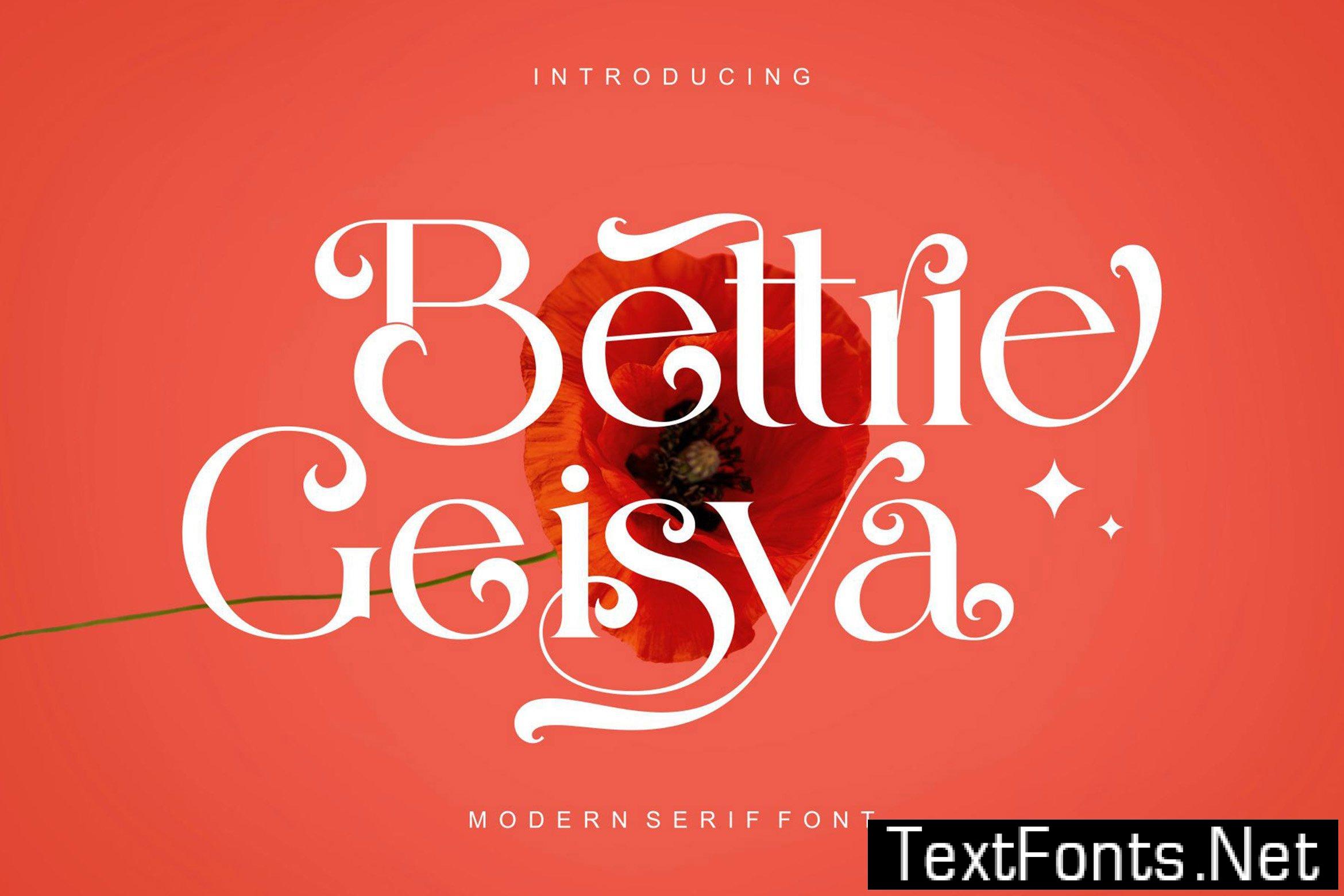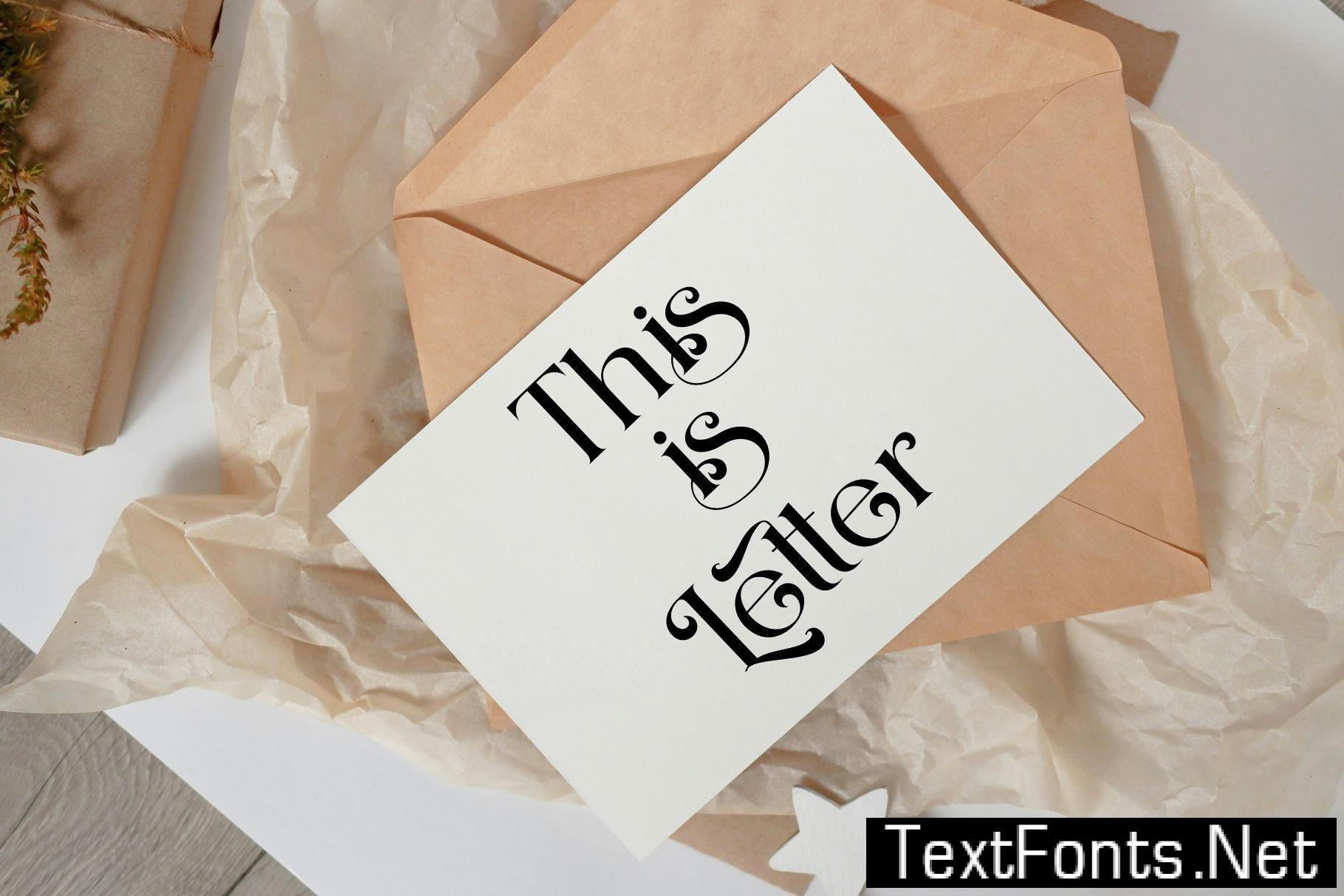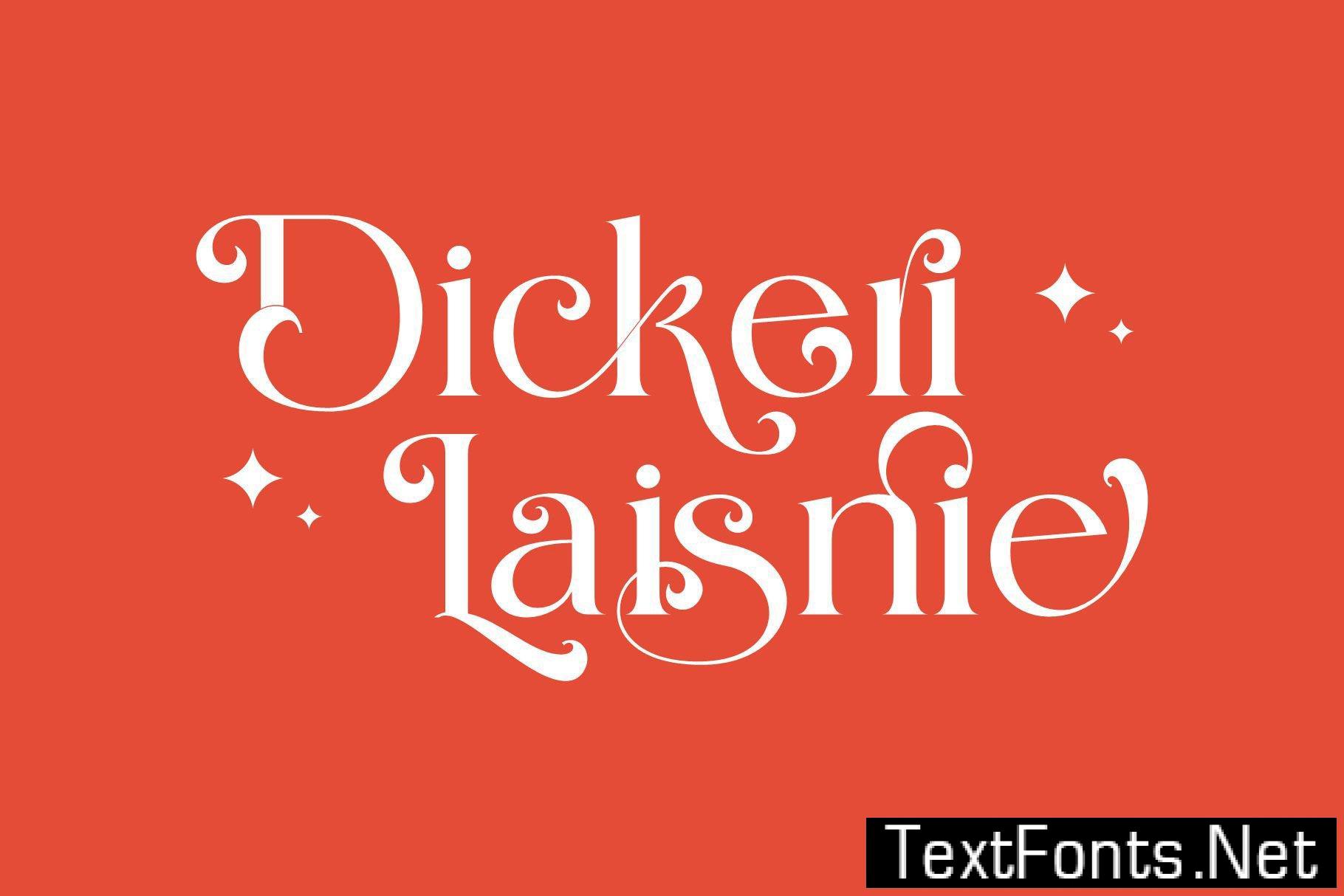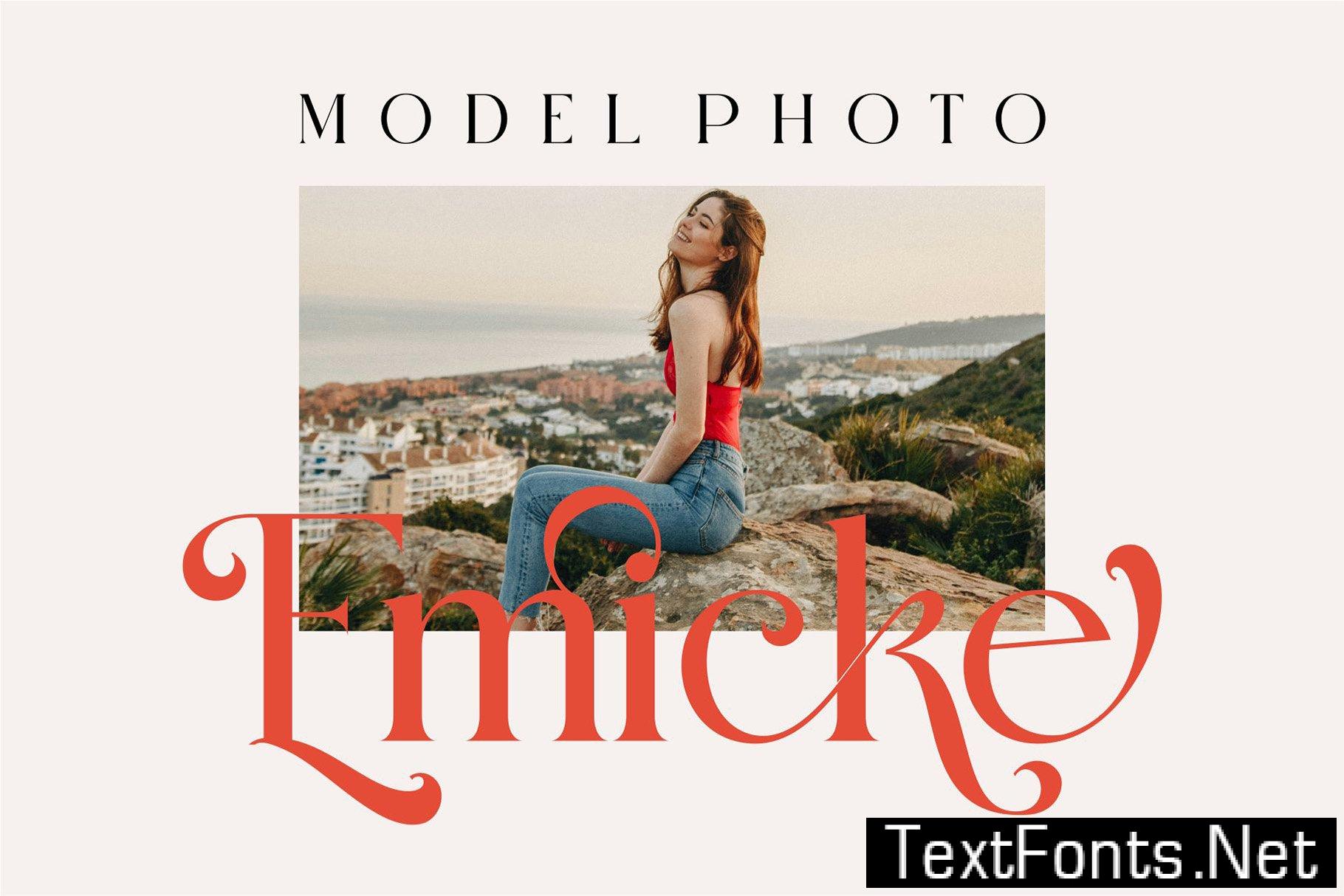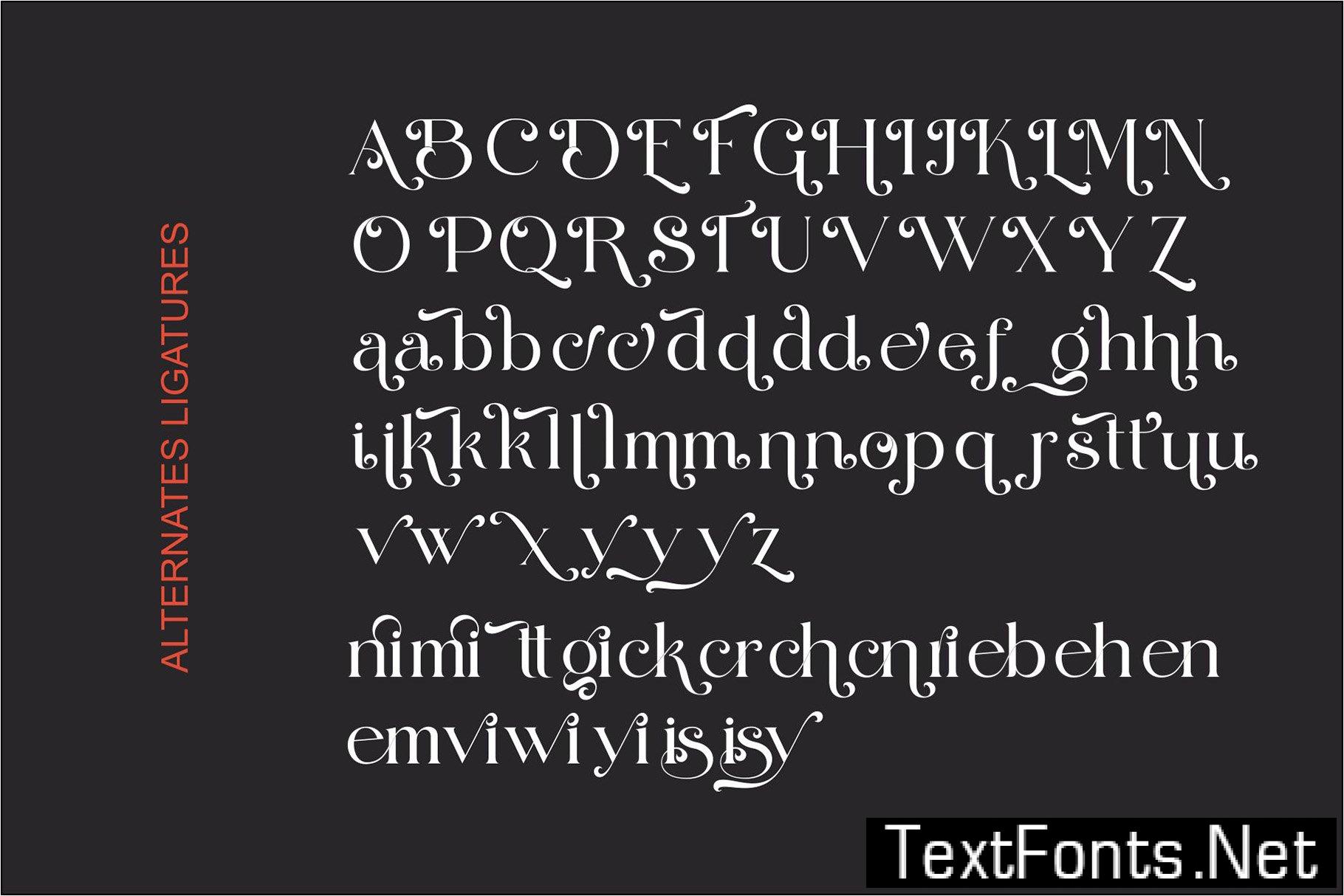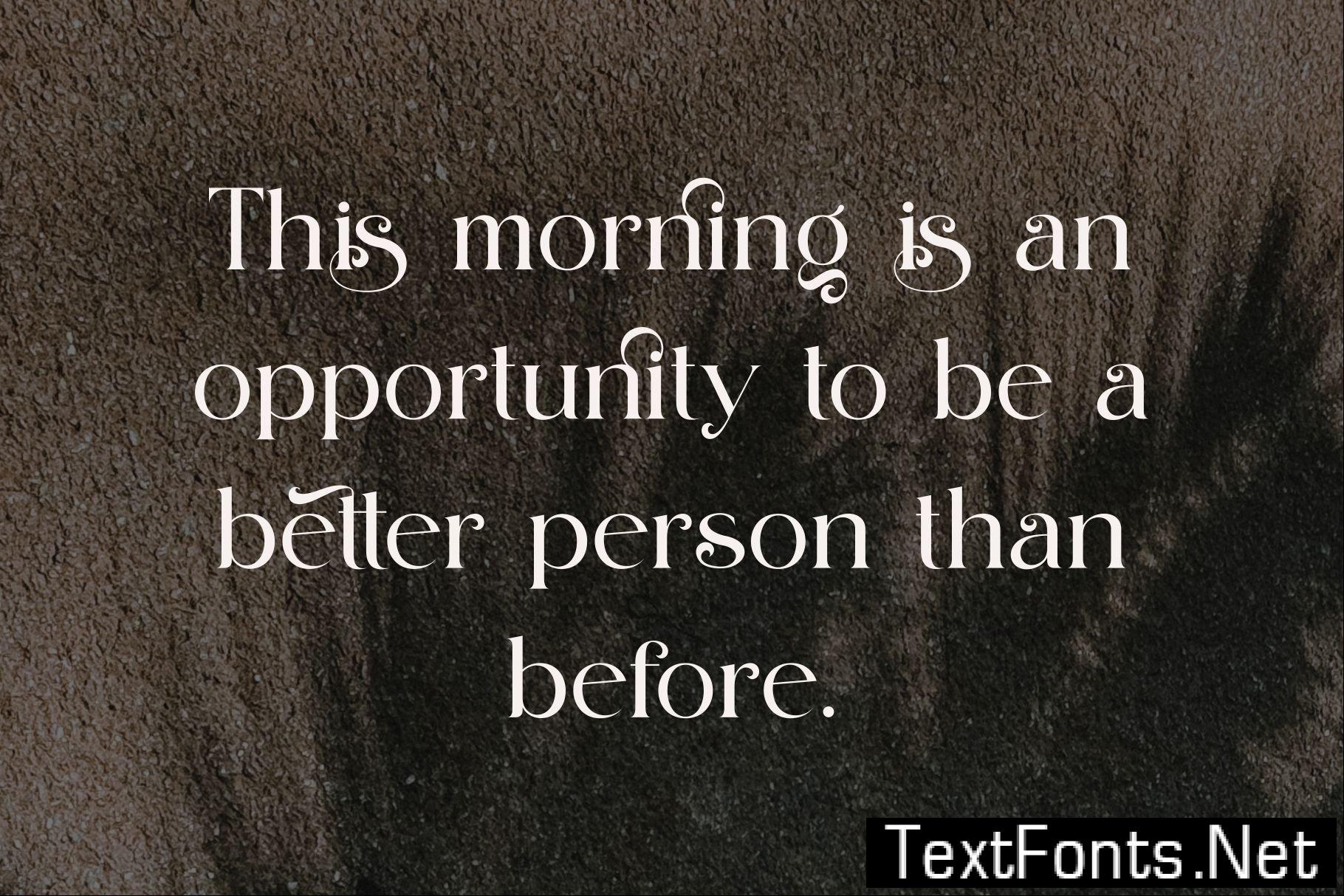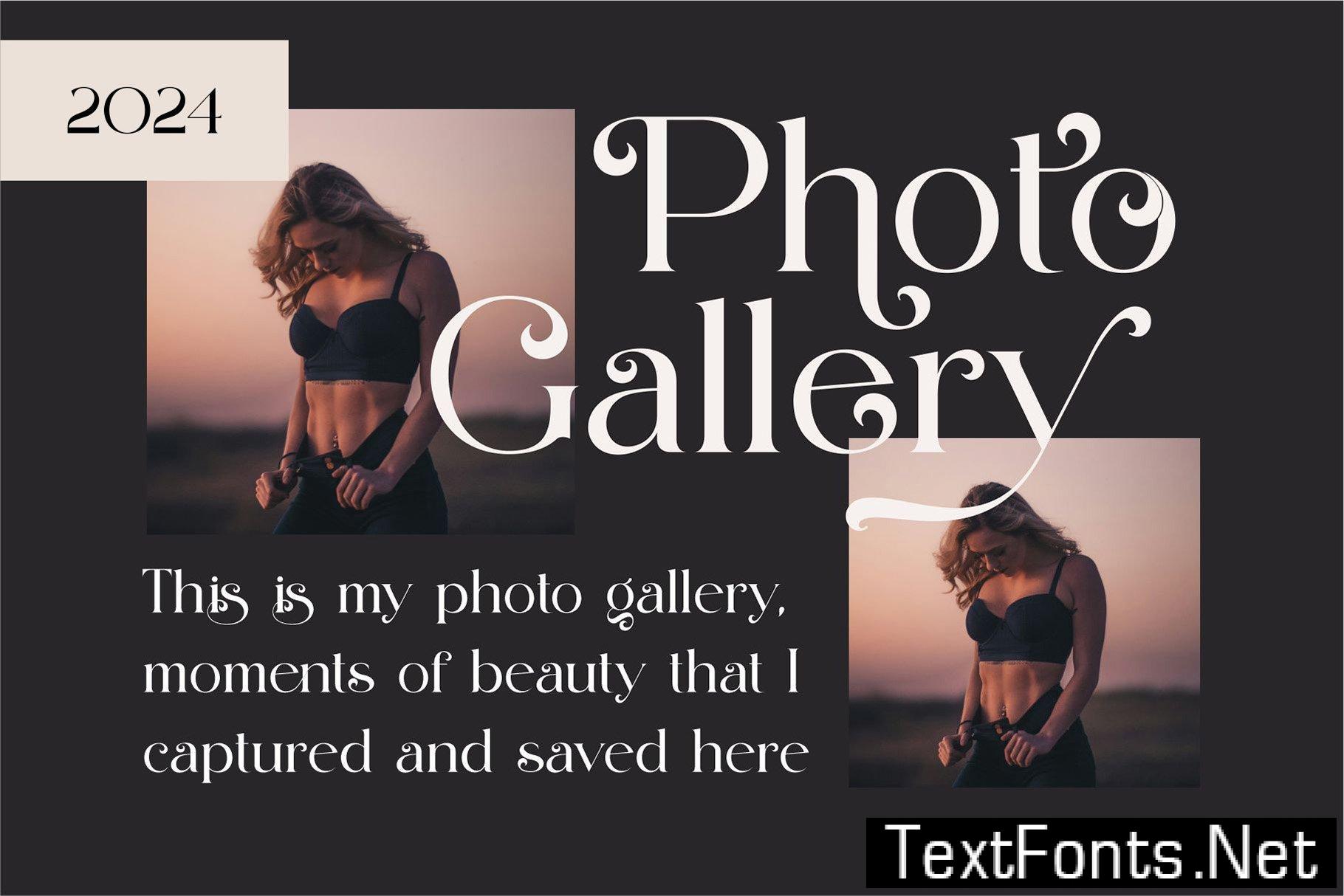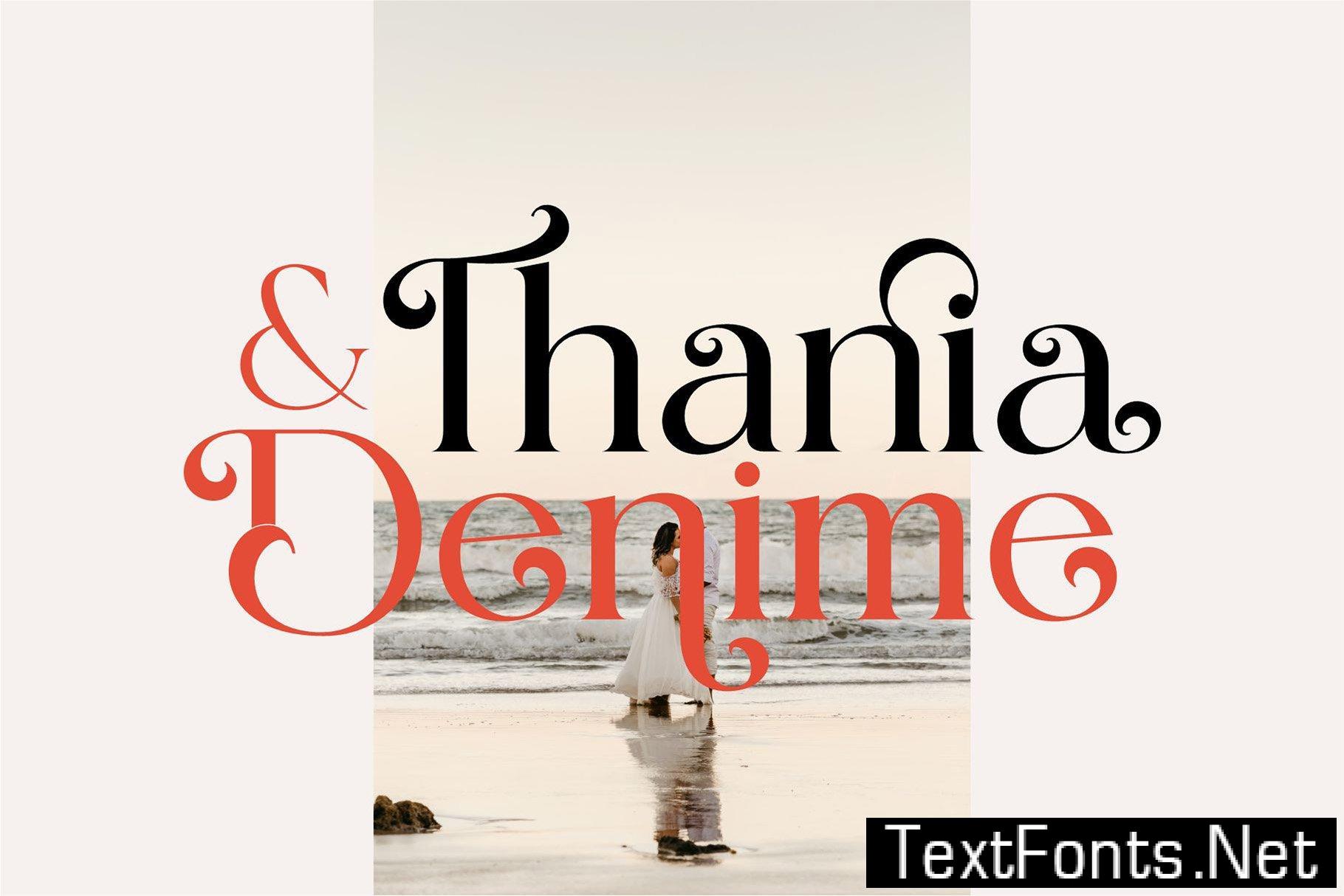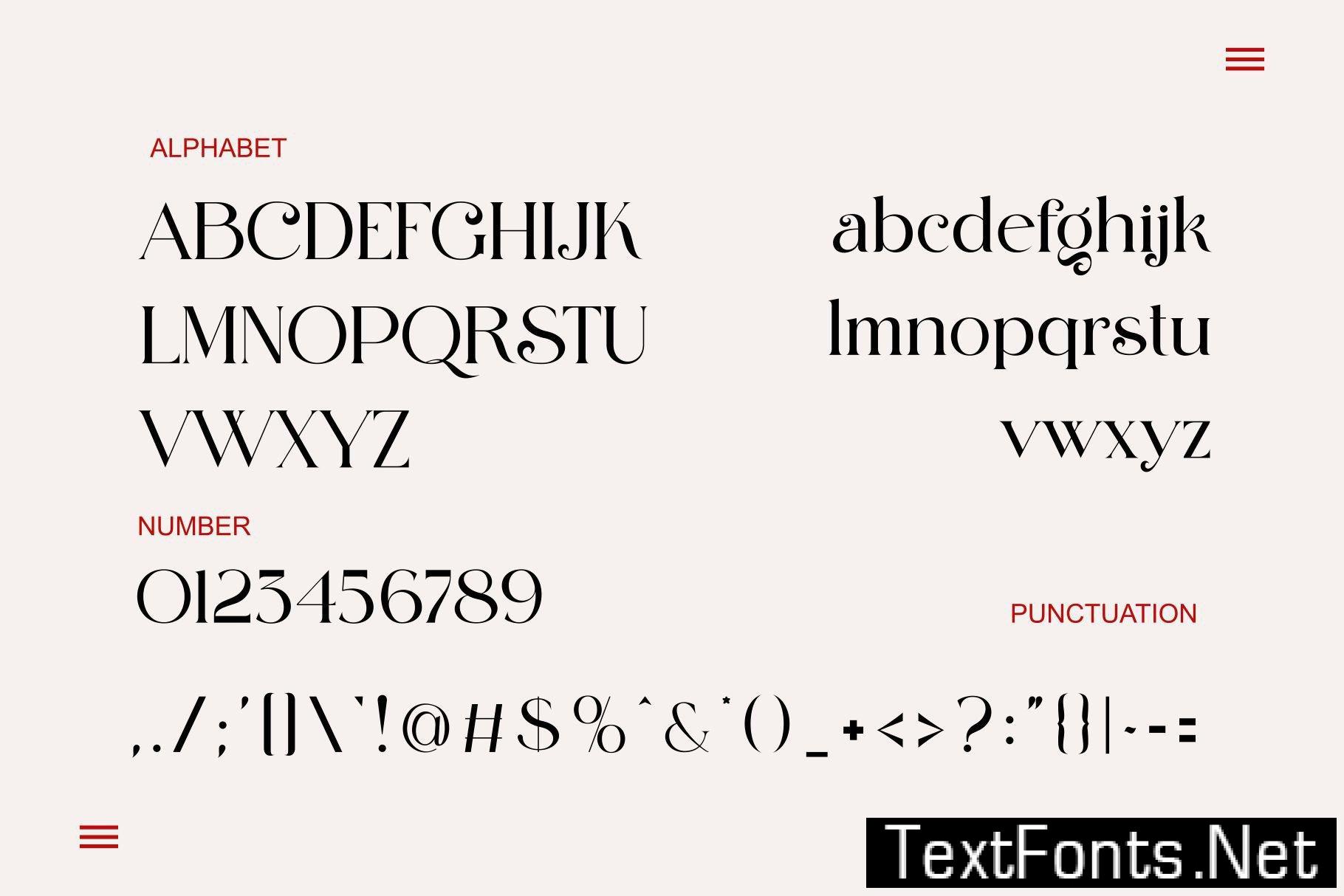
**Bettrie Geisya** Modern Serif Typeface inspired by the famous minimalist logo perfect for the purposes of designing templates, brochures, videos, advertising branding, logos, invitation, layout design, elegant crafting, beauty design and other